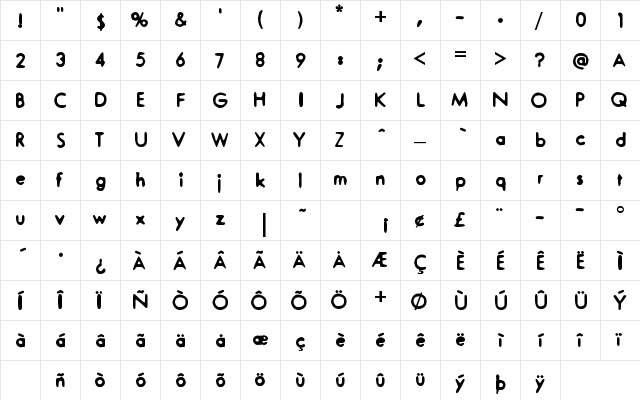
Smerkan Bold Font Preview
Smerkan Bold
Design Context for Smerkan Typeface
Smerkan takes a measured approach to typography — its balanced proportions and neutral character make it a reliable workhorse for both digital and print work. The heavy weight commands attention and anchors typographic hierarchies.